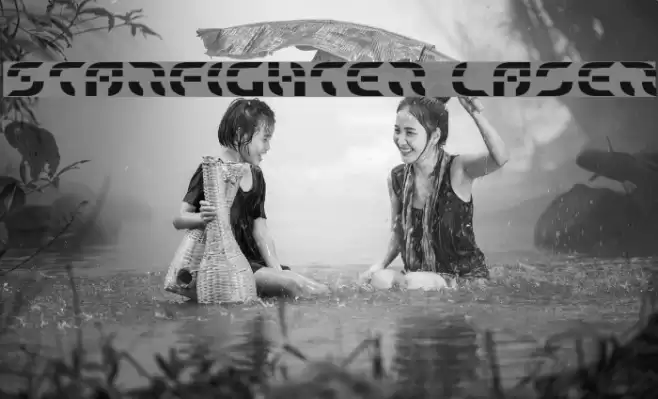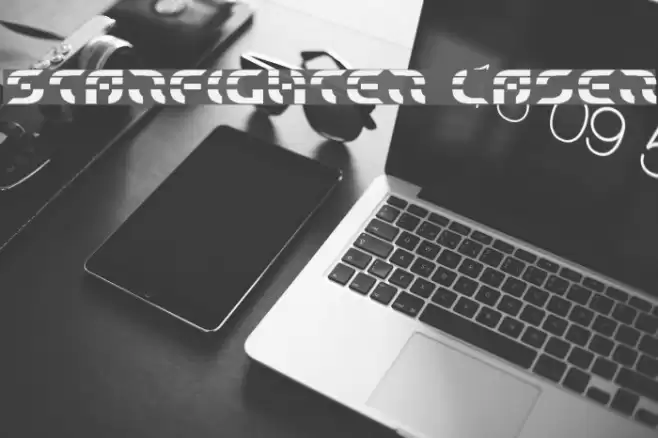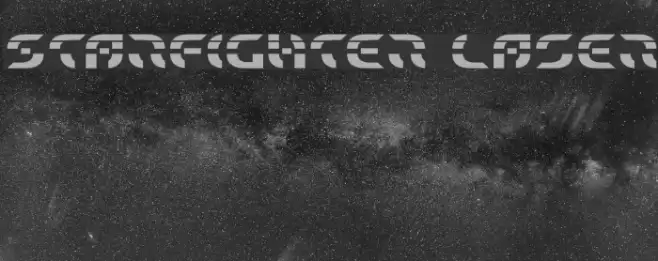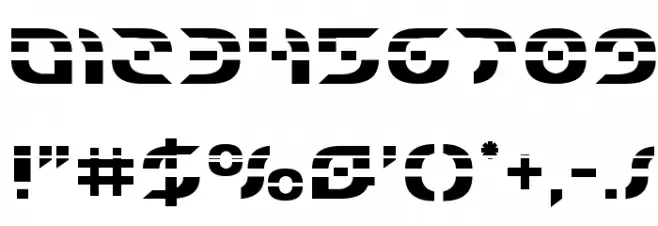
Starfighter Laser Font
Starfighter Laser Description
This font features a futuristic and bold design with a distinct sci-fi aesthetic. The characters are constructed with a combination of solid and segmented lines, creating a digital or laser-cut appearance. The uppercase and lowercase letters maintain a consistent style, emphasizing geometric shapes and sharp angles. The numbers and special characters follow the same design principles, ensuring uniformity across all glyphs. This font's unique style makes it ideal for projects that require a modern and technological feel.
A futuristic, segmented font with a sci-fi aesthetic from Sci-fi fonts.
- Proposed Projects: Ideal for video game titles, movie posters, tech branding, and sci-fi themed designs.